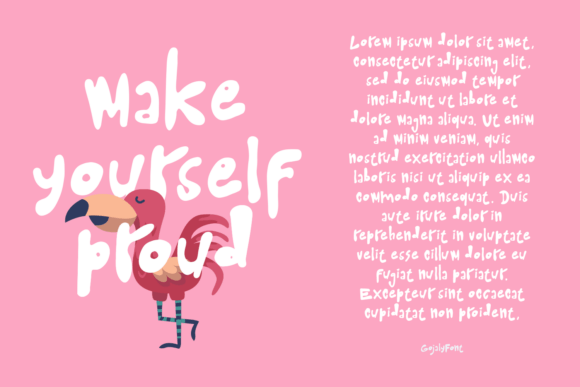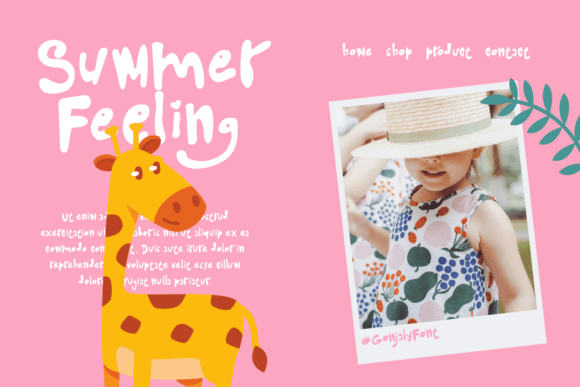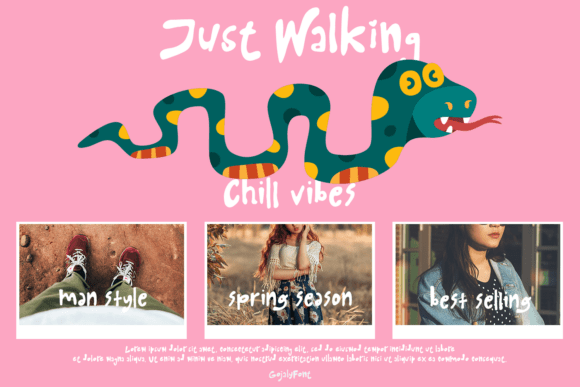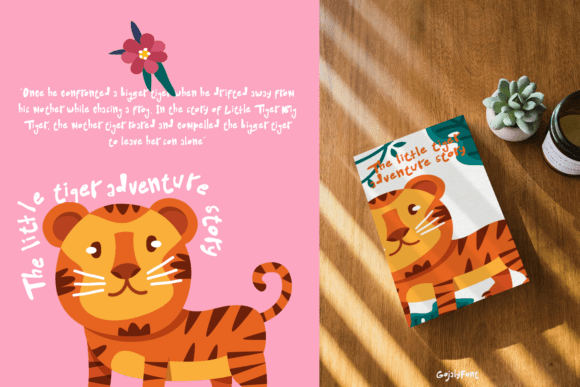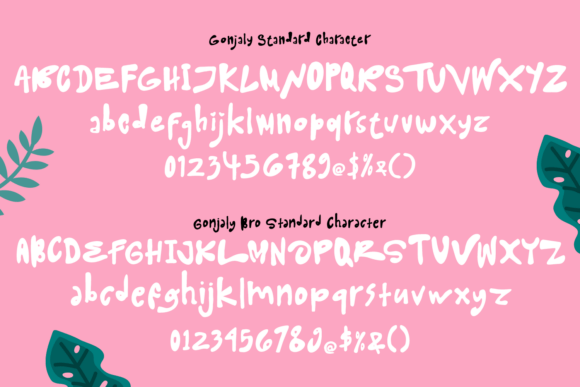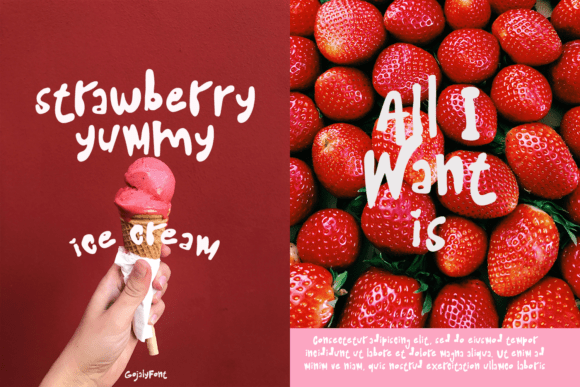
Gonjaly Font: The Playful and Quirky Hand-Drawn Brush Font for Creative Projects
Are you looking for a font that can add a touch of playfulness and whimsy to your design projects? Look no further than the Gonjaly font! This fun and quirky hand-drawn brush font is perfect for designers and crafters who want to create joyful and creative works that capture the imagination of their audience.
The Personality of Gonjaly Font
Gonjaly font is a hand-drawn brush font with a playful personality that shines through in its rounded, friendly letters. The font’s unique and quirky design makes it perfect for projects that require a touch of whimsy and fun. Whether you’re working on a children’s book, a branding project, or a greeting card, Gonjaly font is sure to bring a smile to your audience’s face.
Characteristics of Gonjaly Font
So, what makes Gonjaly font so special? Here are just a few of its key characteristics:
- Rounded and friendly letters: Gonjaly font features rounded, friendly letters that are perfect for creating a warm and inviting atmosphere in your design projects.
- Hand-drawn brush style: The font’s hand-drawn brush style gives it a unique, organic feel that’s perfect for creating whimsical and playful designs.
- Heart-shaped details: The heart-shaped details in Gonjaly font add an extra touch of charm and whimsy, making it perfect for projects that require a bit of romance or playfulness.
Gonjaly font is perfect for a wide range of creative projects, including:
- Children’s books: The font’s playful and whimsical design makes it perfect for children’s books, where imagination and creativity are key.
- Cute branding: Gonjaly font is also great for branding projects that require a touch of playfulness and whimsy, such as logos, packaging, and marketing materials.
- Greeting cards: The font’s friendly and approachable design makes it perfect for greeting cards, where you want to convey a sense of warmth and personality.
- Whimsical design projects: Whether you’re working on a poster, a flyer, or a social media graphic, Gonjaly font is sure to add a touch of whimsy and creativity to your design.
Why Choose Gonjaly Font?
So, why choose Gonjaly font for your next design project? Here are just a few reasons:
- Unique and playful design: Gonjaly font has a unique and playful design that’s sure to stand out in a crowd.
- Easy to read: Despite its playful design, Gonjaly font is easy to read, making it perfect for projects where you need to communicate a message.
- Versatile: Gonjaly font is versatile and can be used for a wide range of projects, from children’s books to branding and marketing materials.
Tips for Using Gonjaly Font
Here are a few tips for using Gonjaly font in your design projects:
- Use it sparingly: Gonjaly font is a bold and playful font, so use it sparingly to add emphasis and interest to your design.
- Pair it with a neutral font: Pair Gonjaly font with a neutral font, such as a sans-serif font, to create contrast and visual interest.
- Experiment with colors: Gonjaly font looks great in a variety of colors, so don’t be afraid to experiment and find the perfect color scheme for your project.
In conclusion, Gonjaly font is a fun and quirky hand-drawn brush font that’s perfect for designers and crafters who want to create joyful and creative works. Its rounded, friendly letters and heart-shaped details make it perfect for children’s books, cute branding, greeting cards, and whimsical design projects. With its unique and playful design, Gonjaly font is sure to add a touch of whimsy and creativity to your next design project.